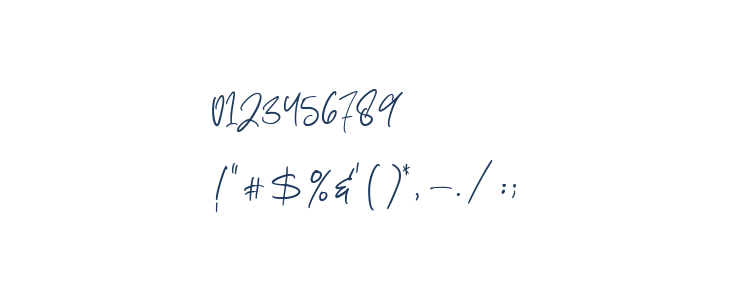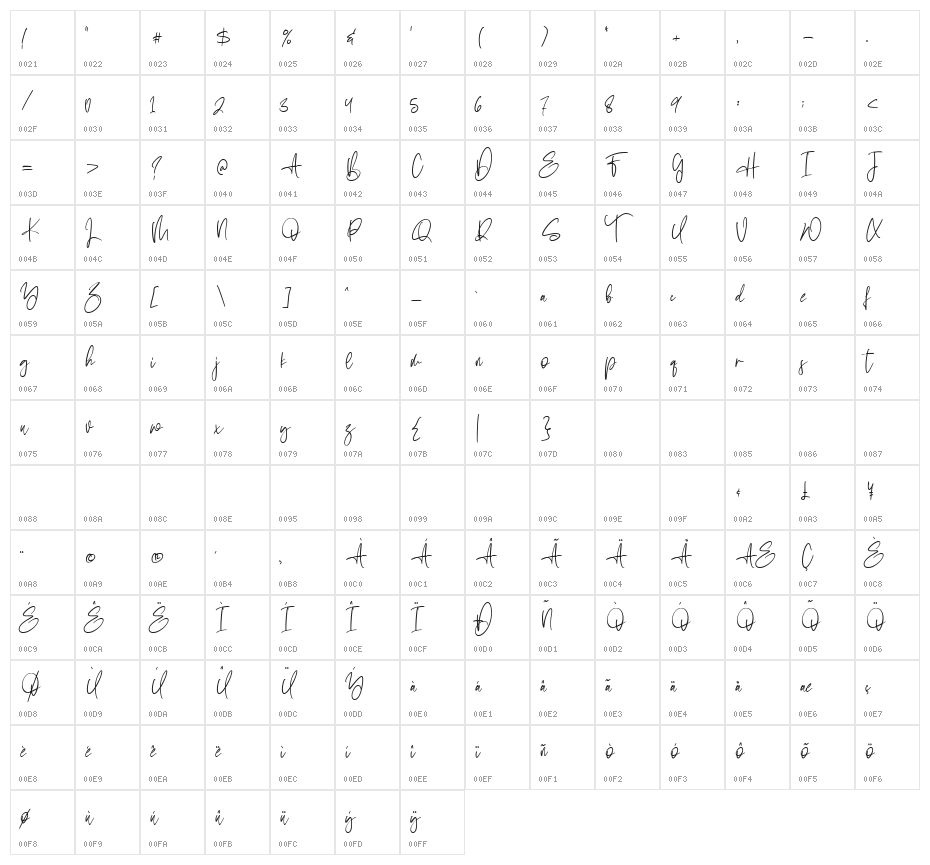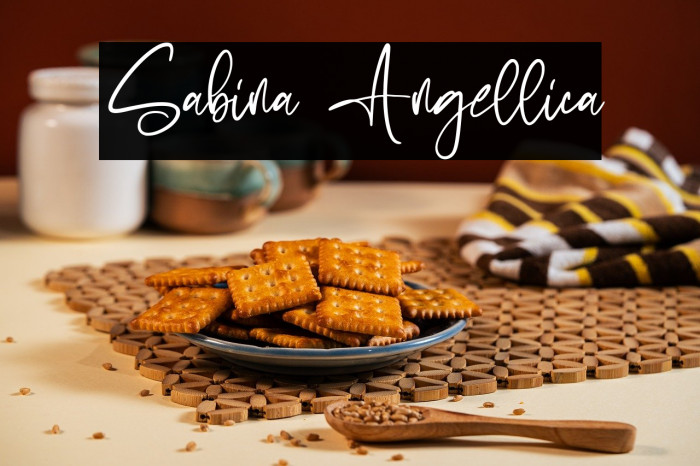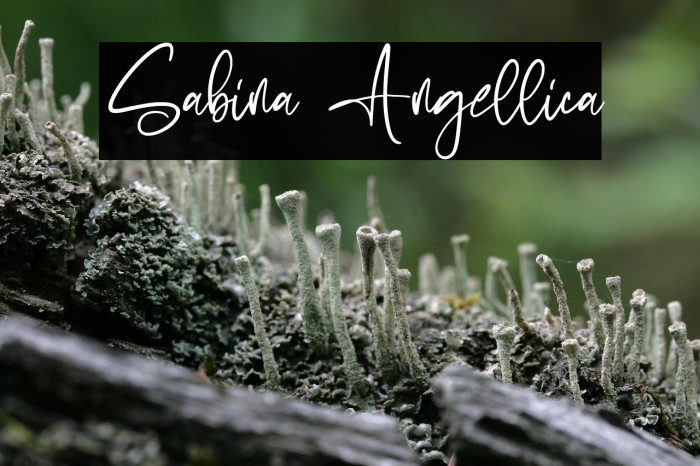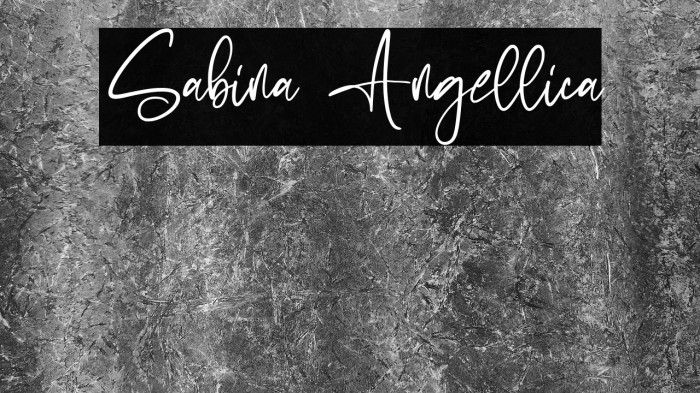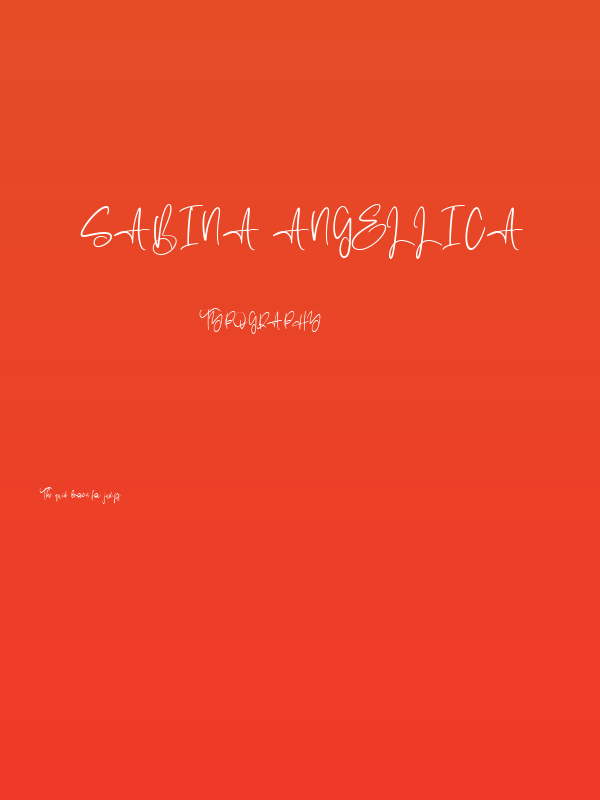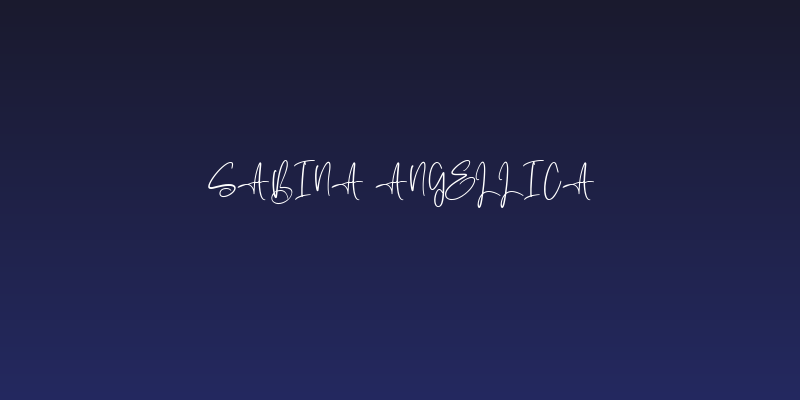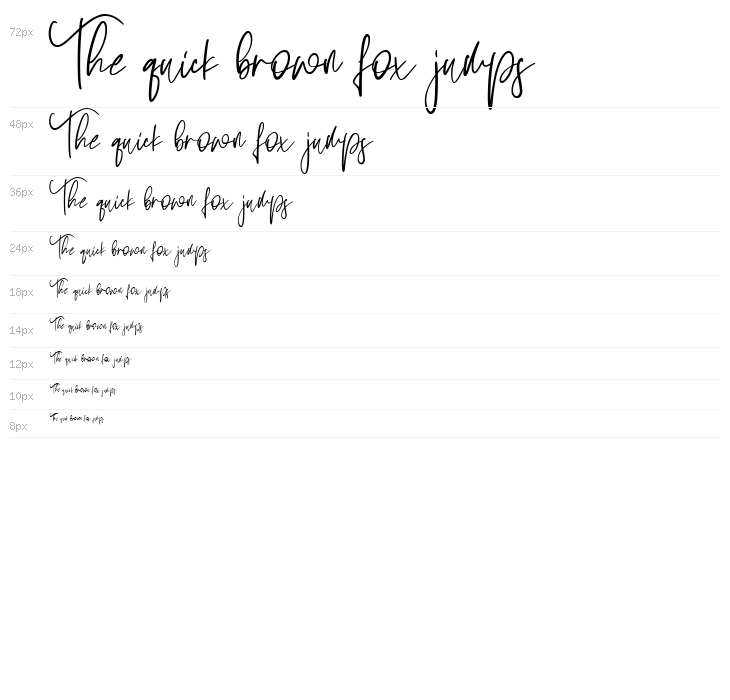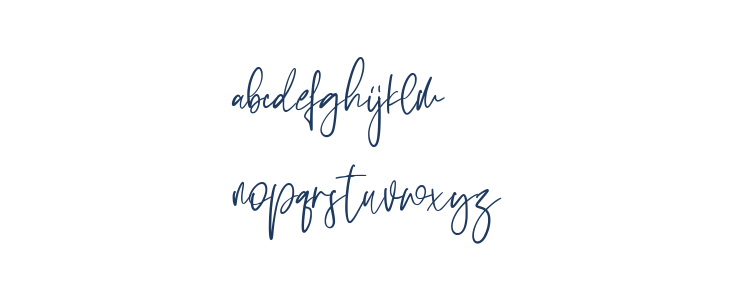
Sabina Angellica Font
Sabina Angellica Description
This font features an elegant, flowing script style that mimics the fluidity of natural handwriting. The characters are connected with smooth, sweeping strokes, giving it a sophisticated and artistic appearance. The uppercase letters are bold and prominent, while the lowercase letters maintain a delicate balance with their slender lines. The numerals and special characters are crafted with the same attention to detail, ensuring consistency throughout. This font exudes a sense of grace and creativity, making it ideal for projects that require a personal touch.
Overall StyleElegant, Artistic
Use CaseLogos, Invitations, Artistic projects
Proposed ProjectsIdeal for wedding invitations, greeting cards, personal branding, and artistic projects.